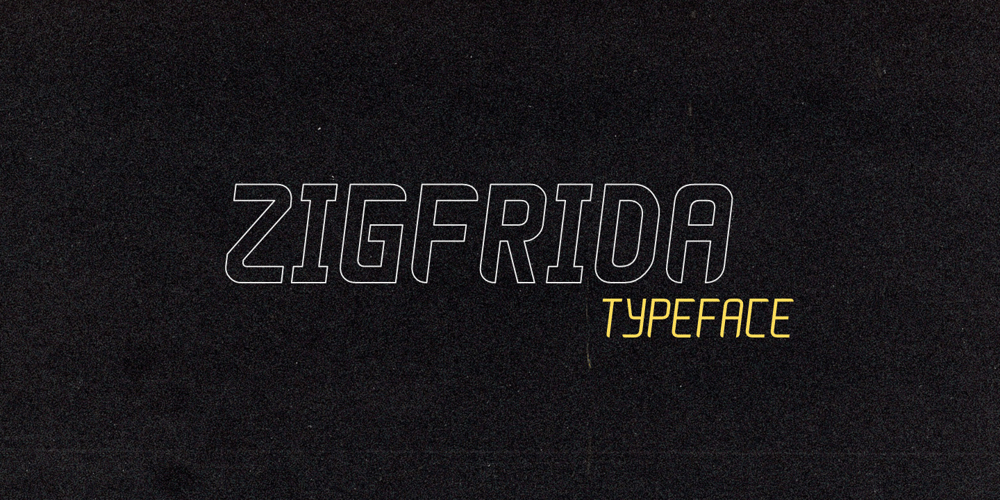
Zigfrida Font Family was designed by Anderson Ruda and published by Anderson Ruda. Zigfrida contains 24 styles and family package options. Zigfrida Typeface was born from a process of re-designing a logo where, through a grid created, I was developing all its main characters. As the project grew, it was noted that it was necessary not only to limit itself to the Latin alphabet, but also to develop Cyrillic characters. Its possibilities of use are endless, can be used in projects for your favorite sport, signs, posters, large formats, advertising projects, architectural, packaging, titles, among others. The result of all this was the development of a font that has up to 747 glyphs that can understand 100% of Latin languages and the vast majority of countries that use the Cyrillic alphabet. It has unique personality and characteristics that bring a differential to any project it is part of. —– A Zigfrida Typeface nasceu a partir de um processo de re-design de um logotipo onde, através de um grid criado, fui desenvolvendo todos os seus principais caracteres. A medida que o projeto foi crescendo, observou-se que era preciso não apenas se limitar ao alfabeto latino, mas também desenvolver os caracteres cirílicos. Suas possibilidades de uso são infinitas, pode ser utilizada em projetos para seu esporte favorito, sinalizações, cartazes, grandes formatos, projetos publicitários, arquitetônicos, embalagens, títulos, entre outros. O resultado de tudo isso foi o desenvolvimento de uma fonte que possui até 747 glifos capaz de compreender 100% dos idiomas latinos e a grande maioria dos países que utilizam o alfabeto cirílico. Tem personalidade e característica únicas que trazem um diferencial para qualquer projeto que ela fizer parte.